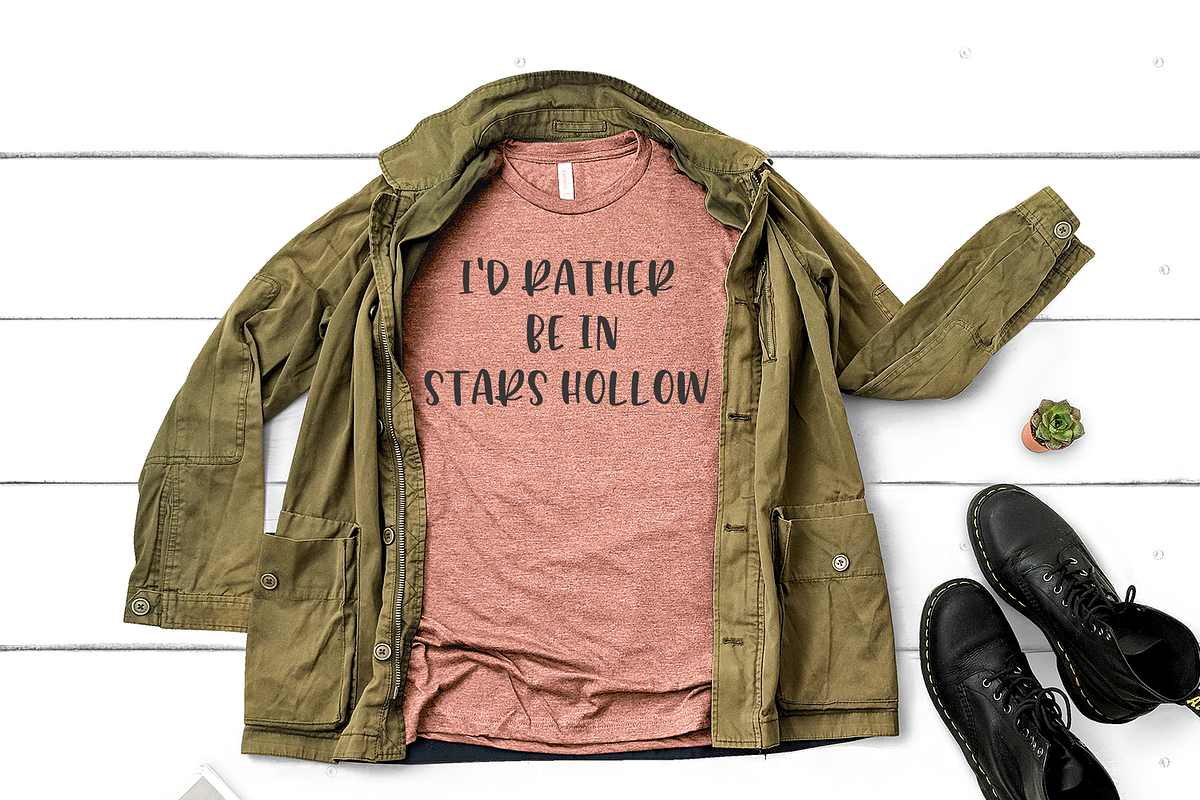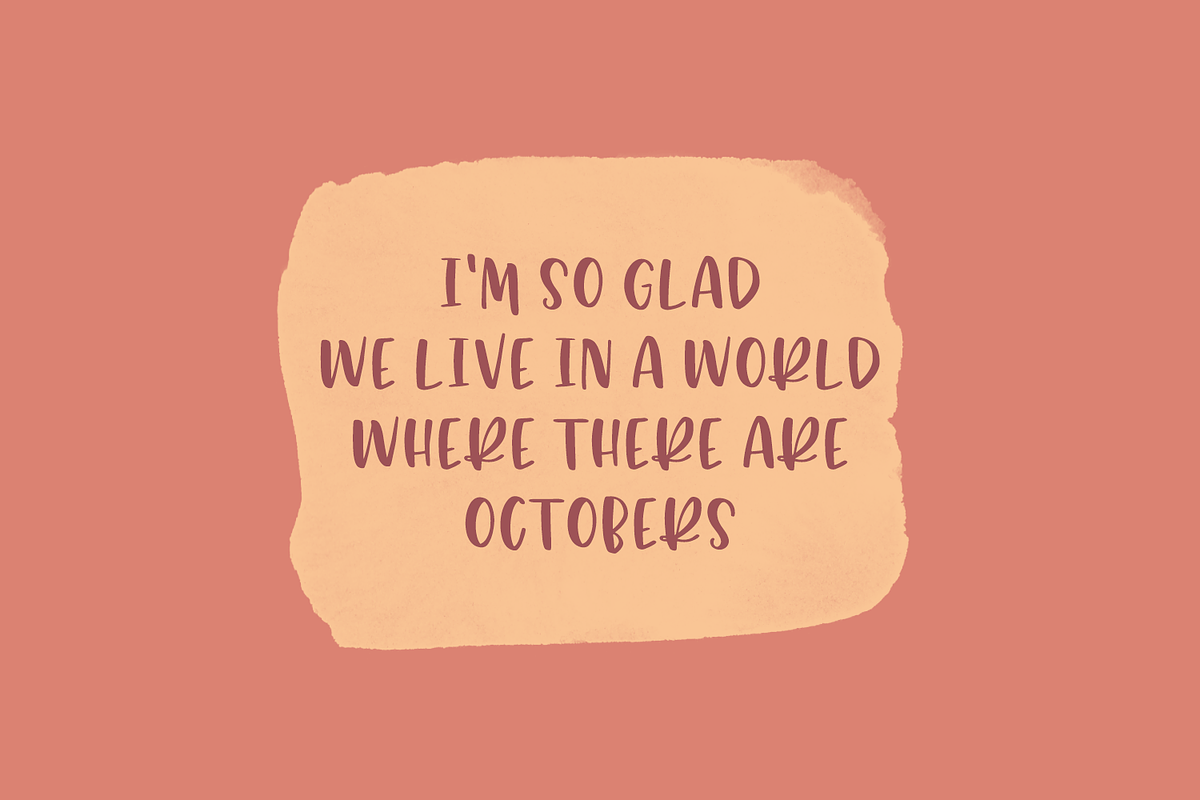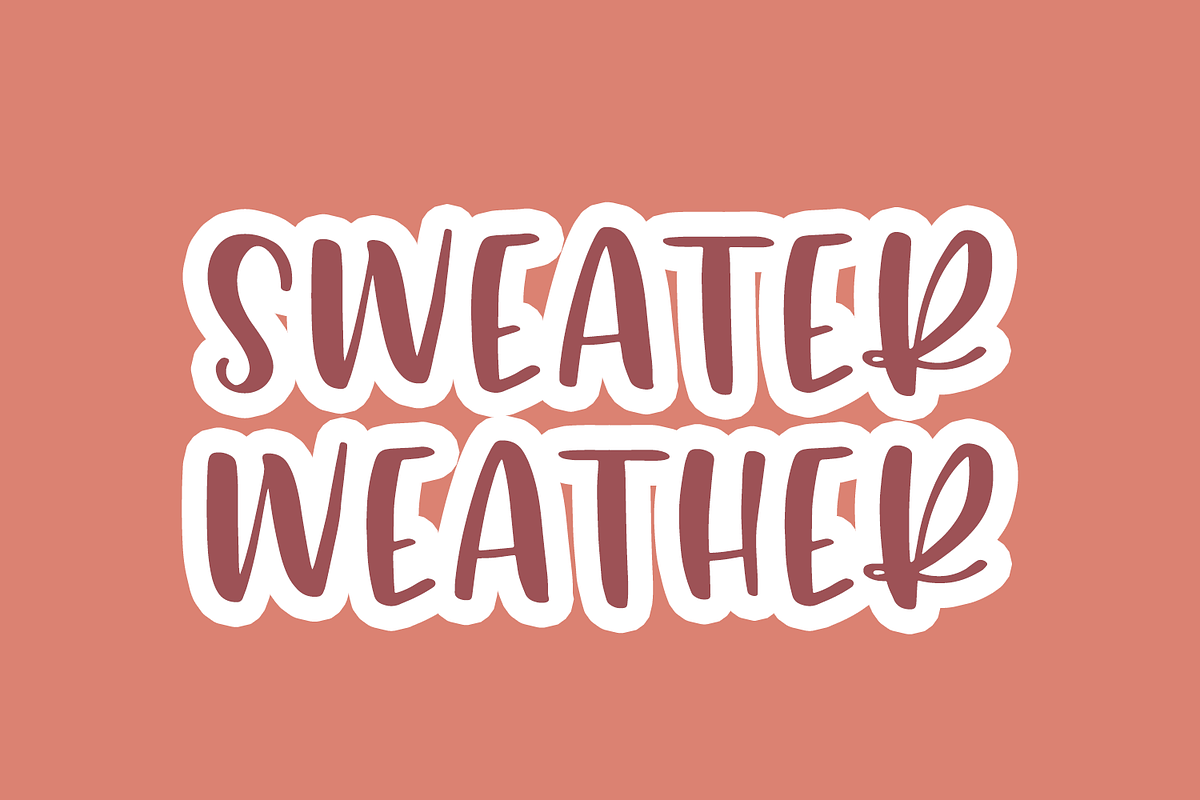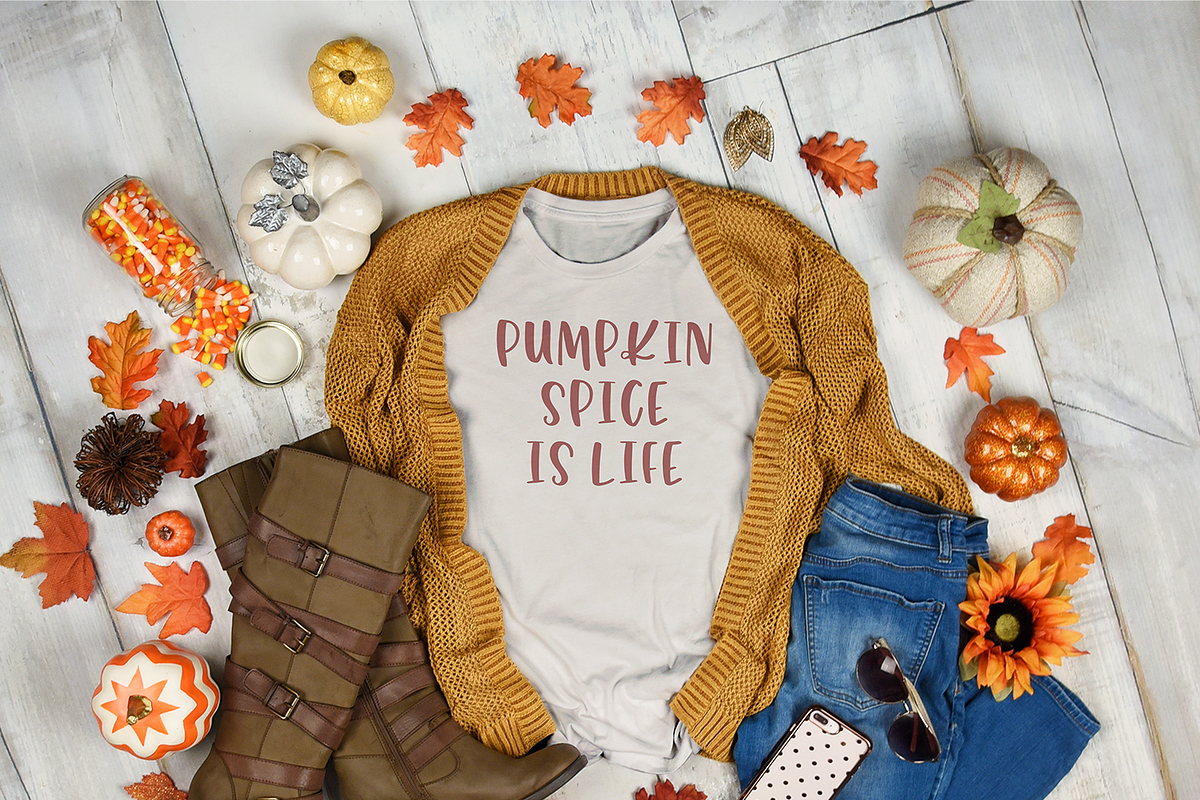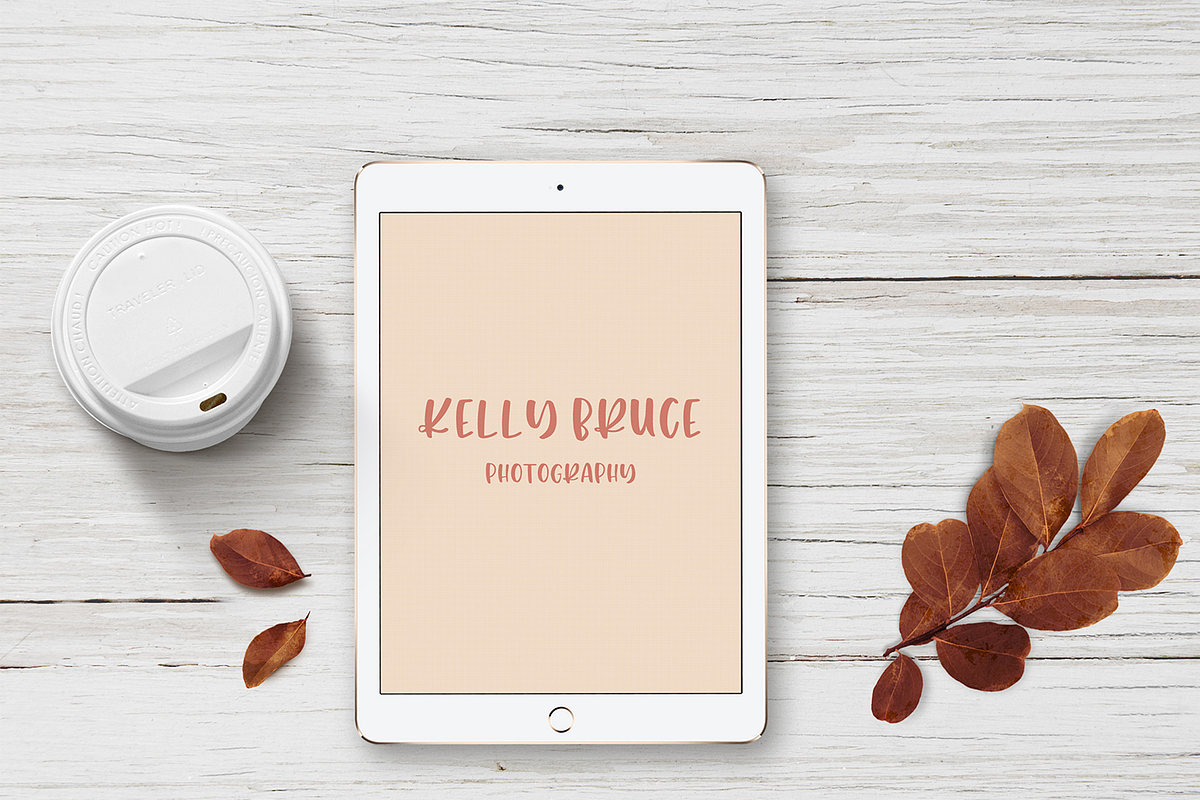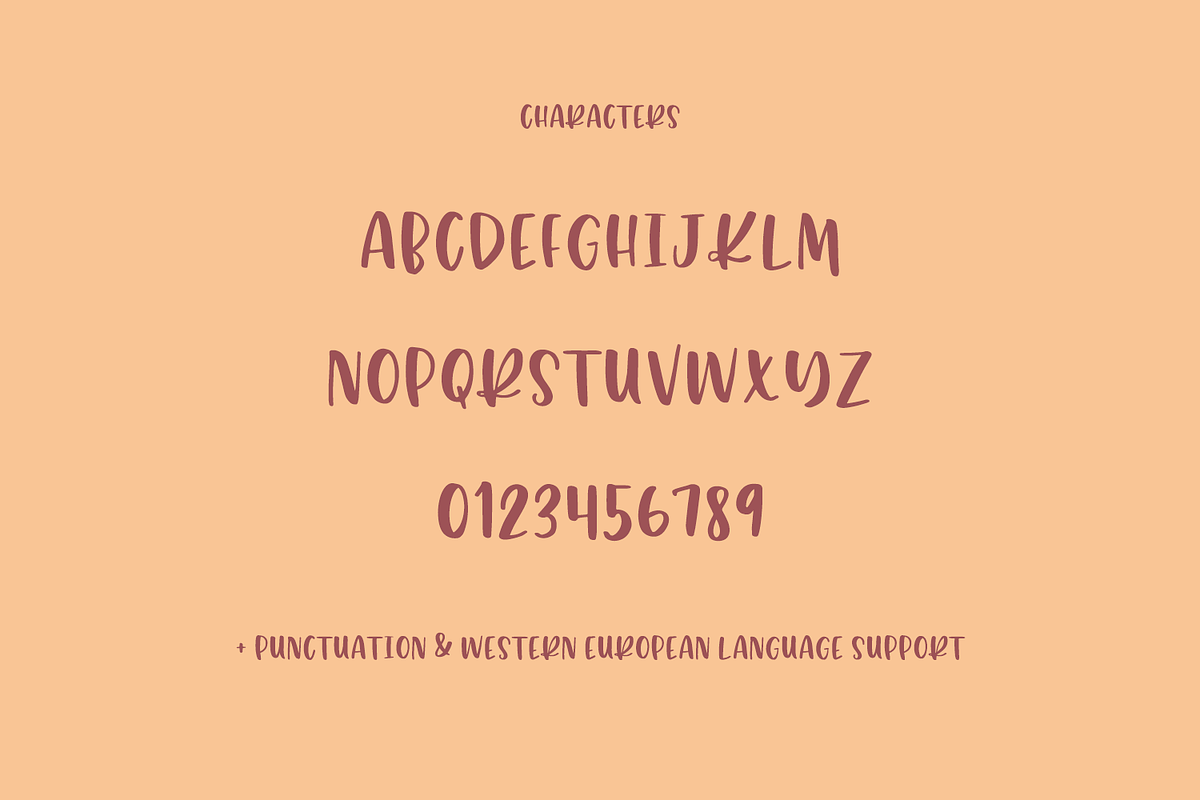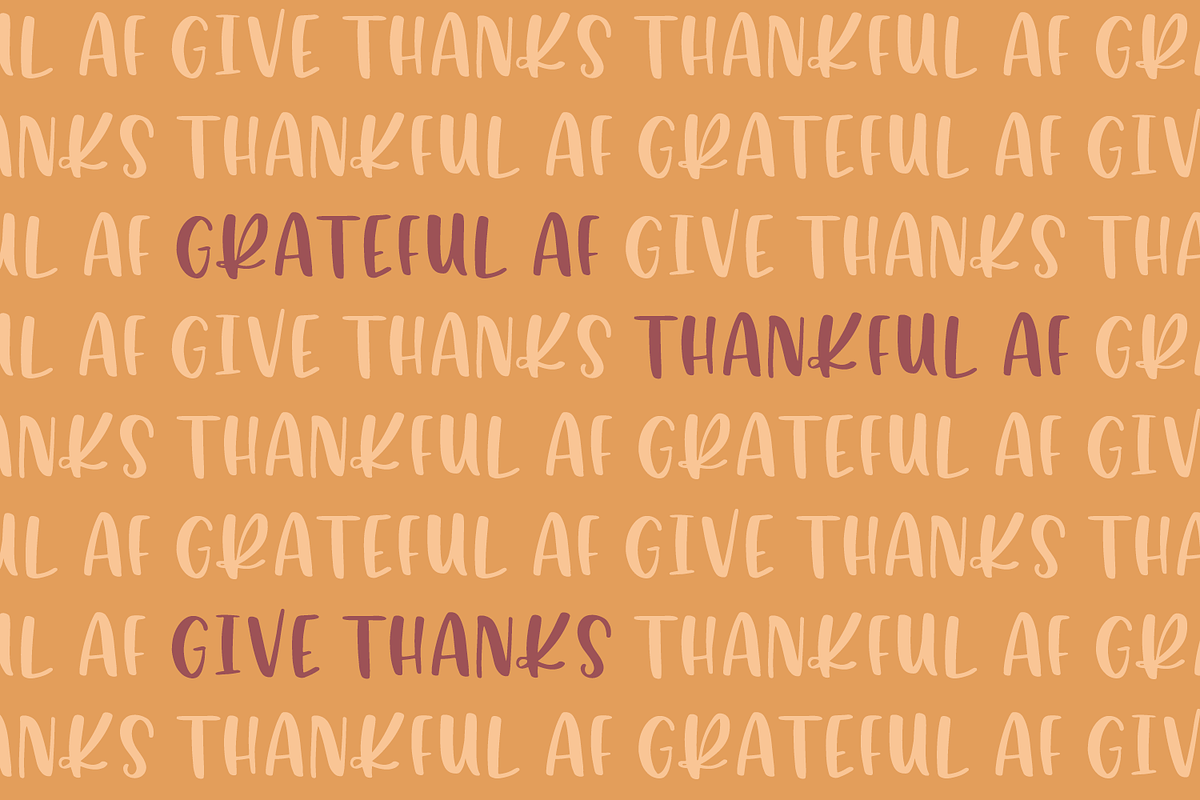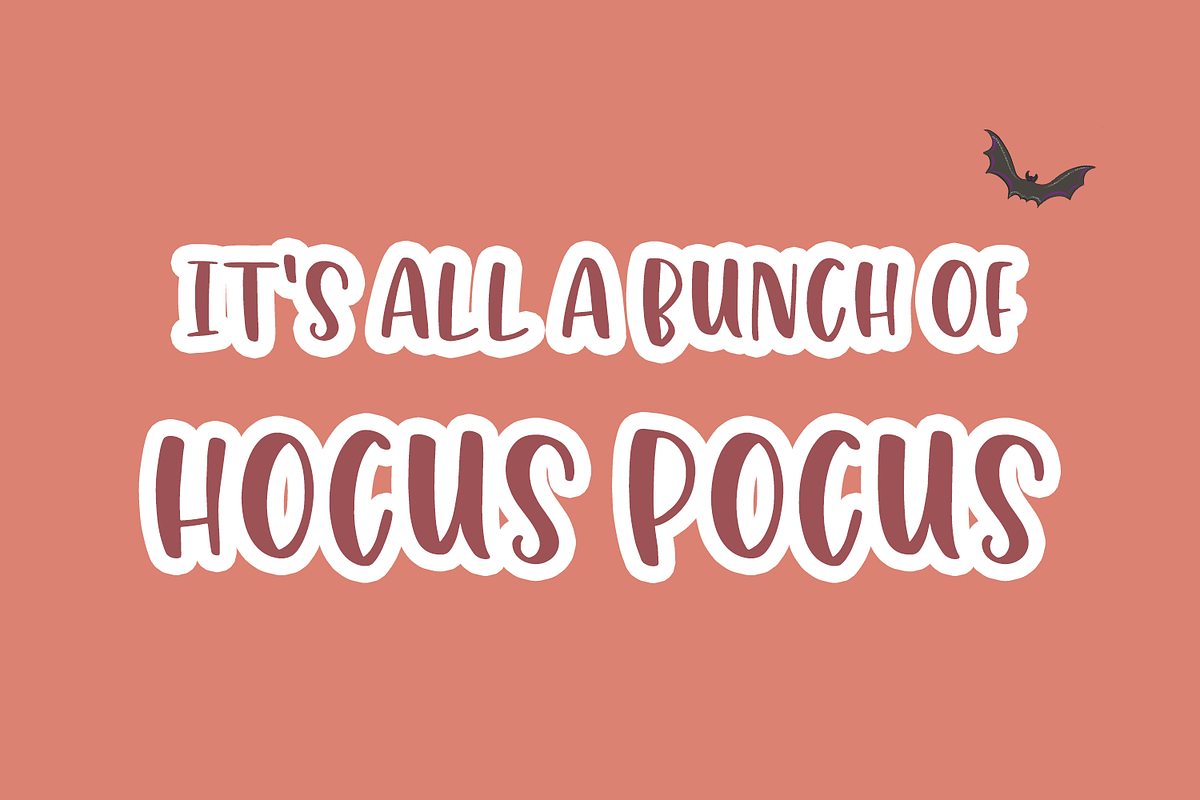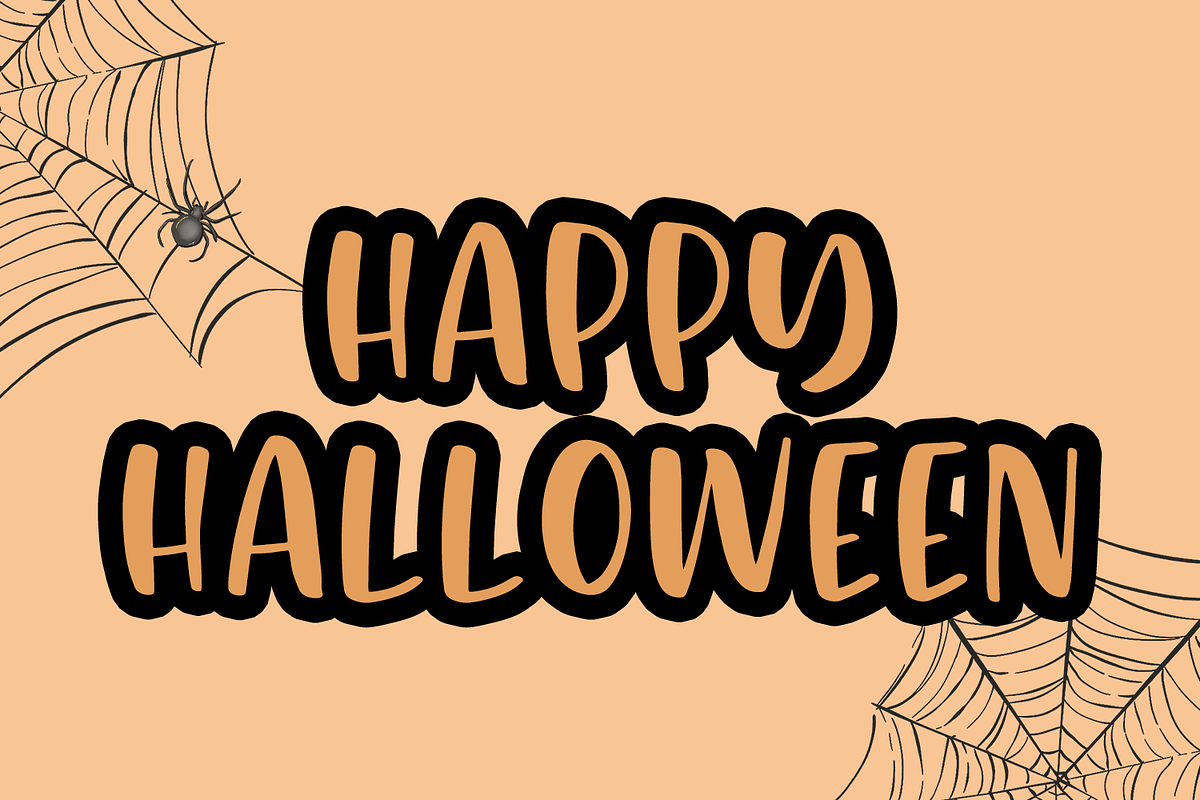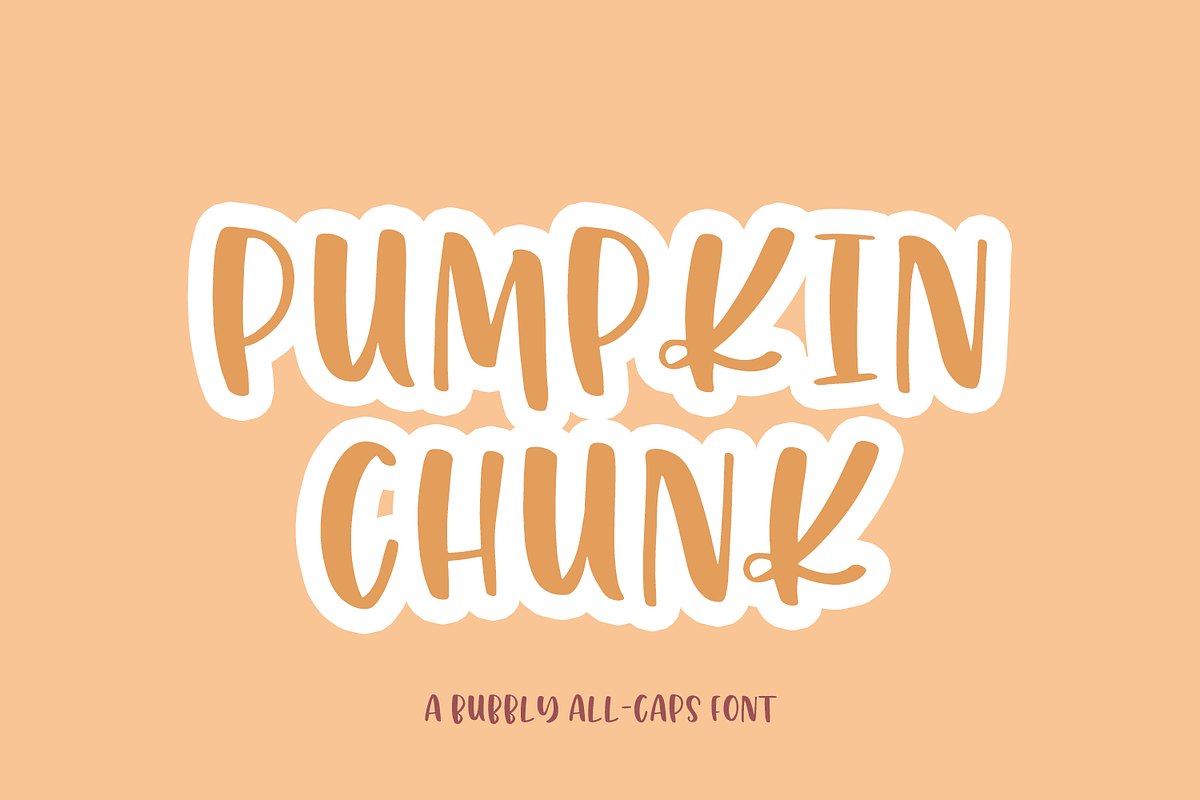
Pumpkin Chunk Sans
Introducing Pumpkin Chunk, an all caps sans font with a slightly feminine but very bold aesthetic.
Pumpkin Chunk is best for:
- website header elements needing a bold, slightly feminine, funky touch
- clean print design like magazines + flyers
- t-shirt design
- logos and branding
- quote graphics for social media
- creating SVG designs with a smooth, clean edge - cuts well on a Cricut or Silhouette machine
Pumpkin Chunk includs:
- uppercase characters only
- numbers & punctuation
- Western European Language Support
- PUA-encoding